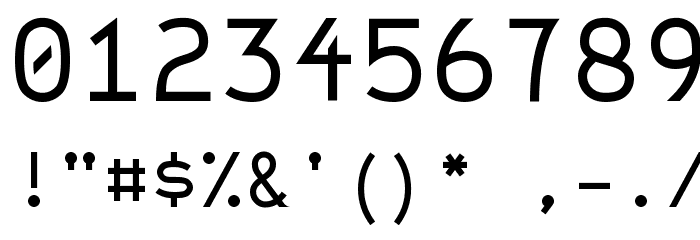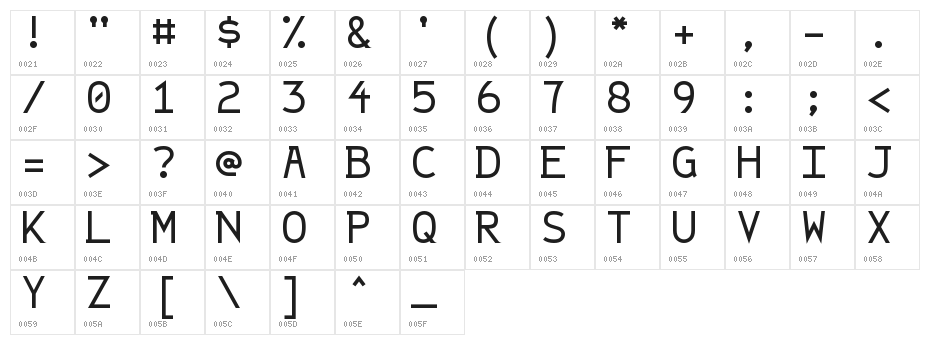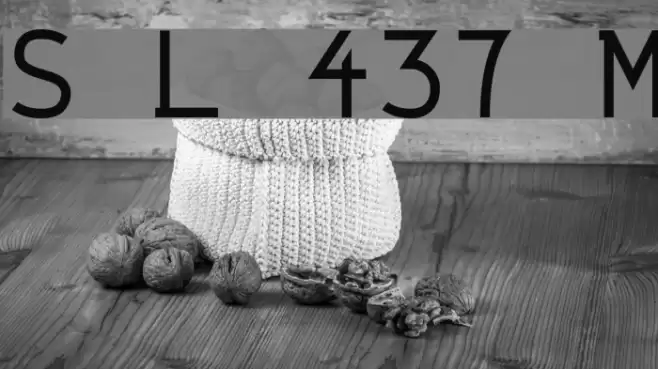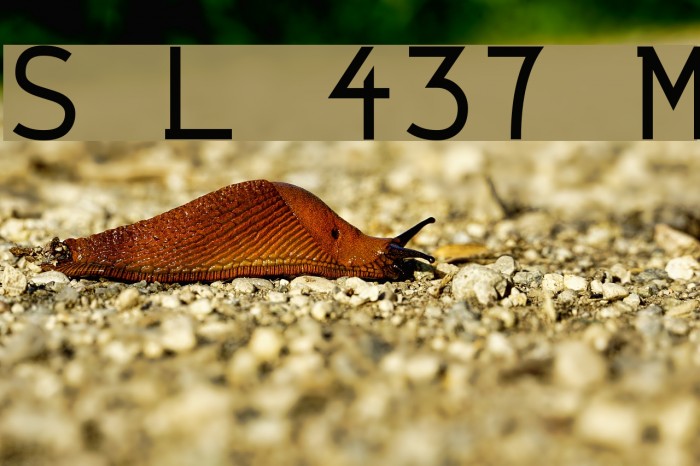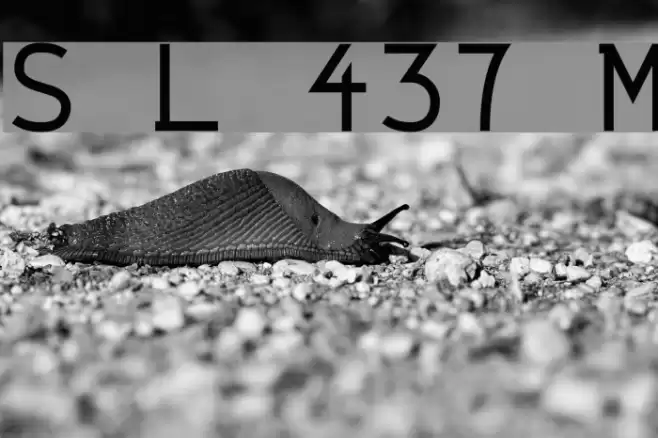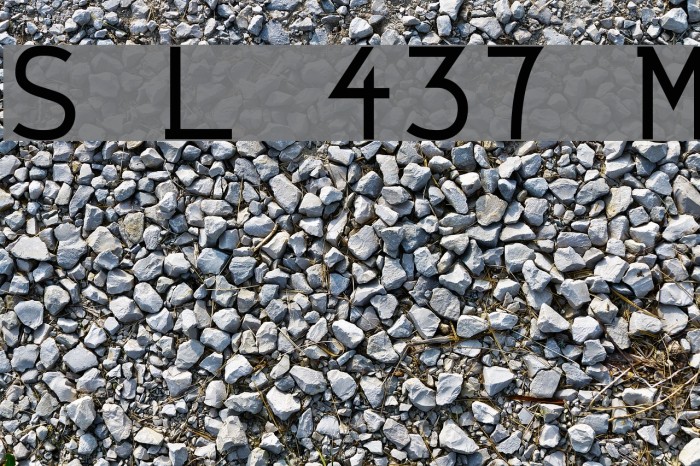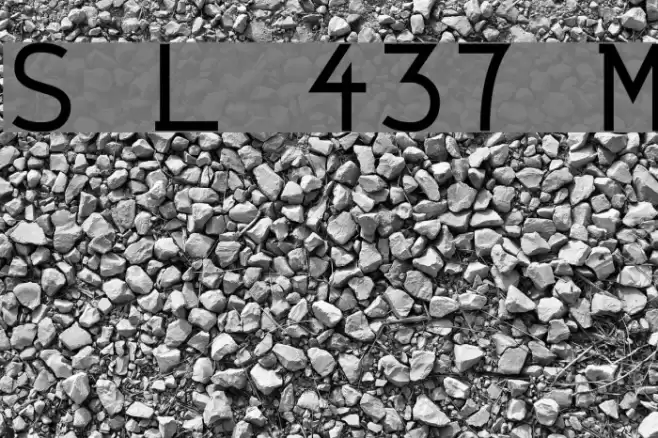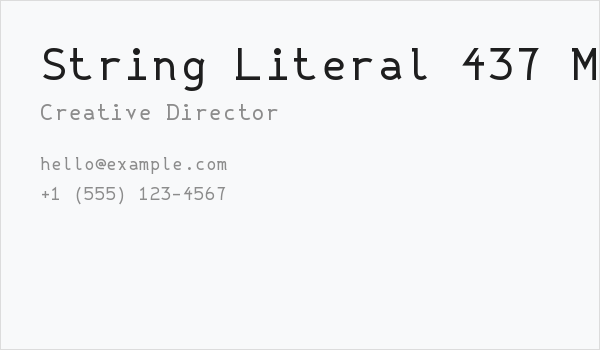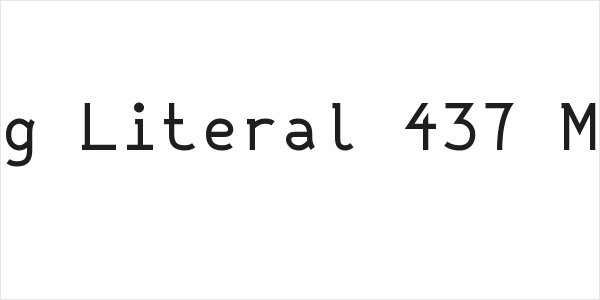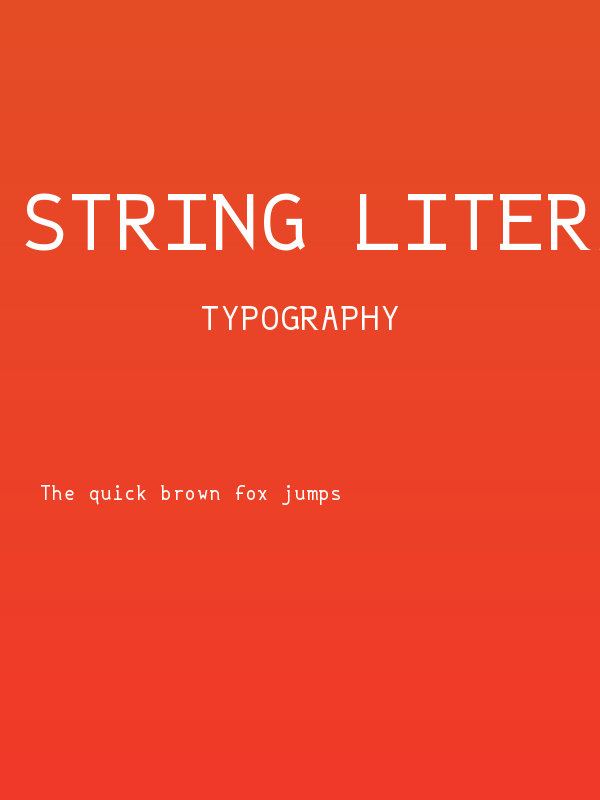
String Literal 437 Medium Font
String Literal 437 Medium Description
This font features a clean and modern sans-serif style with a geometric structure. The characters are uniform in width, giving it a monospaced appearance. The uppercase letters are bold and assertive, while the lowercase letters maintain a consistent height, contributing to a balanced look. The numerals are clear and easily distinguishable, making them suitable for technical or digital applications. Special characters are straightforward and match the overall minimalist design. This font is versatile and can be used in various contexts where clarity and precision are required.
| Use Case | Coding, Technical documentation, Digital interfaces |
| Proposed Projects | Ideal for coding environments, technical documentation, digital interfaces, and minimalist design projects. |